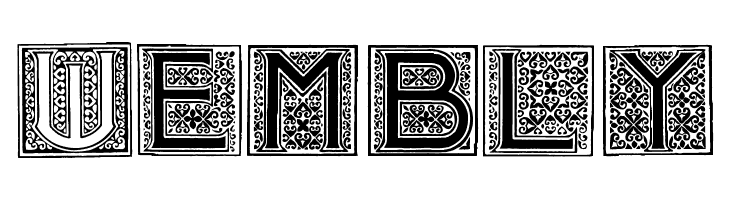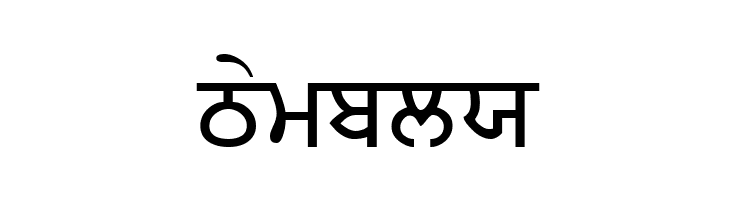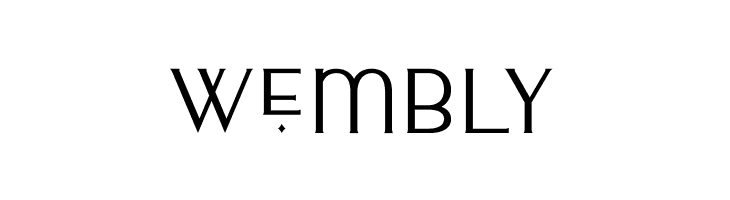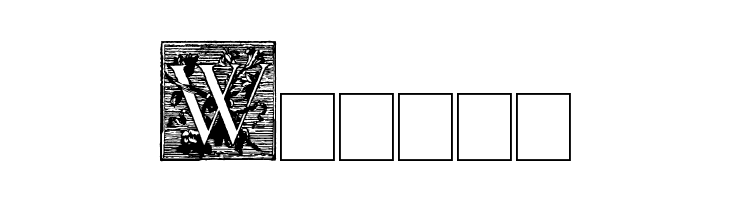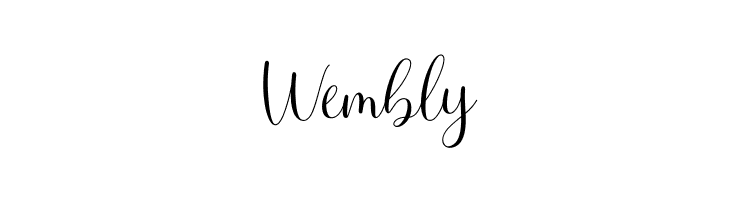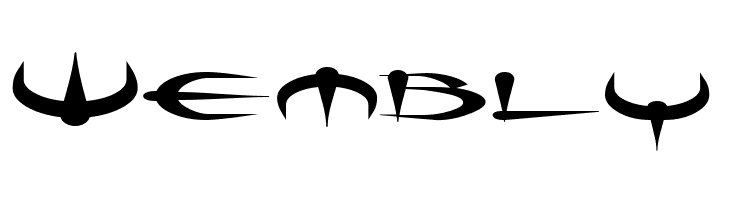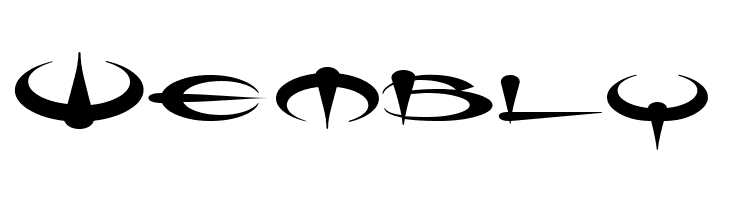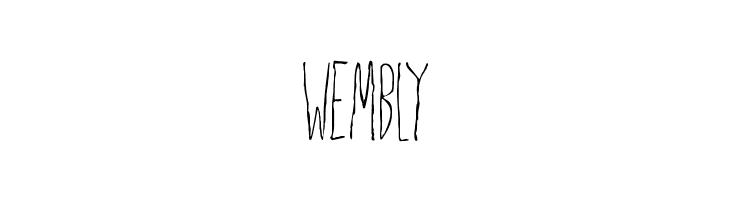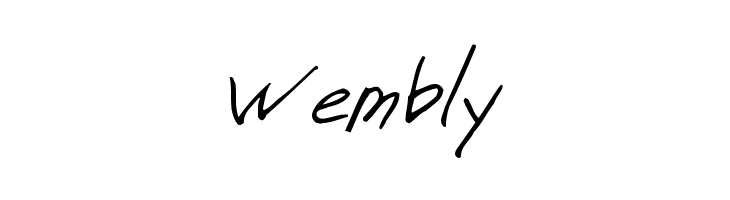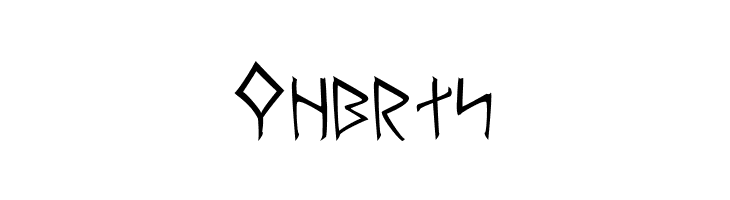
A playful, jagged font with a hand-cut, artistic style.
A bold, geometric, and abstract decorative font with unique character designs.
An ornate mosaic-style font with detailed uppercase letters in square frames.
A graceful and elegant script font with flowing, cursive letters.
A bold, geometric font with a modern, futuristic style.
A bold, modern font with geometric and angular design elements.
A quirky, hand-drawn font with elongated, irregular strokes and a whimsical style.
A clean, modern sans-serif font with uniform stroke width and excellent readability.
A modern, clean sans-serif font with consistent stroke width and minimalistic elegance.
A bold, geometric font with a modern and impactful design.
An ornate, illustrated font with each letter framed in a vintage-style square.
A modern serif font with sharp, angular serifs and dynamic stroke variations.
A clean, modern sans-serif font with uniform stroke width and versatile design.
A bold, rounded font with smooth curves and consistent thickness.
A modern, geometric font with rounded edges and a monolinear stroke.
A modern, wide, and geometric font with rounded edges and a futuristic style.
A modern, rounded sans-serif font with uniform stroke width and excellent readability.
A modern, dotted font with a playful and geometric design.